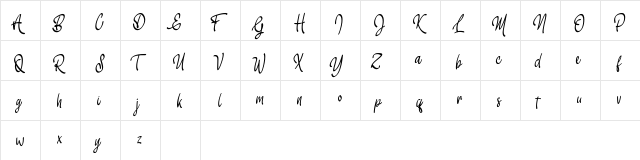
Bloemista Regular
Design Context for Bloemista Typeface
Bloemista is a composed and adaptable typeface that performs quietly and consistently across a wide range of design contexts.
Pro Tip: Pair Bloemista with a font of contrasting weight or personality to build a more expressive typographic hierarchy.